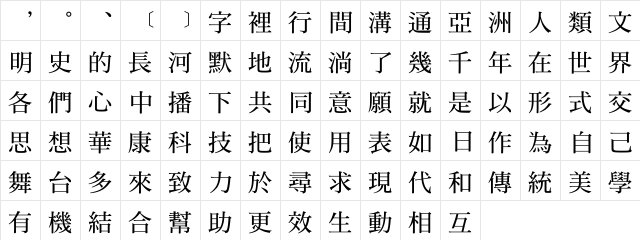
DFMingBold1B Regular
Design Context for DFMingBold1B Typeface
DFMingBold1B is a composed and adaptable typeface that performs quietly and consistently across a wide range of design contexts. Its bold stroke weight gives it real presence on the page.
Pro Tip: Pair DFMingBold1B with a font of contrasting weight or personality to build a more expressive typographic hierarchy.